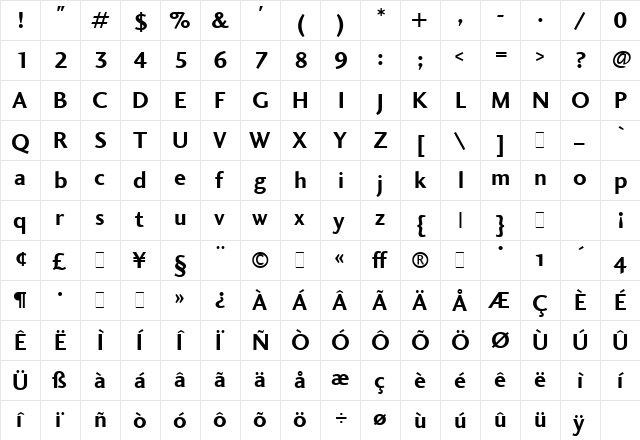
CharlotteSans Bold
Design Context for CharlotteSans Typeface
CharlotteSans offers clean, dependable letterforms without strong stylistic allegiance, making it a practical choice for designers who need flexibility. The heavy weight commands attention and anchors typographic hierarchies.